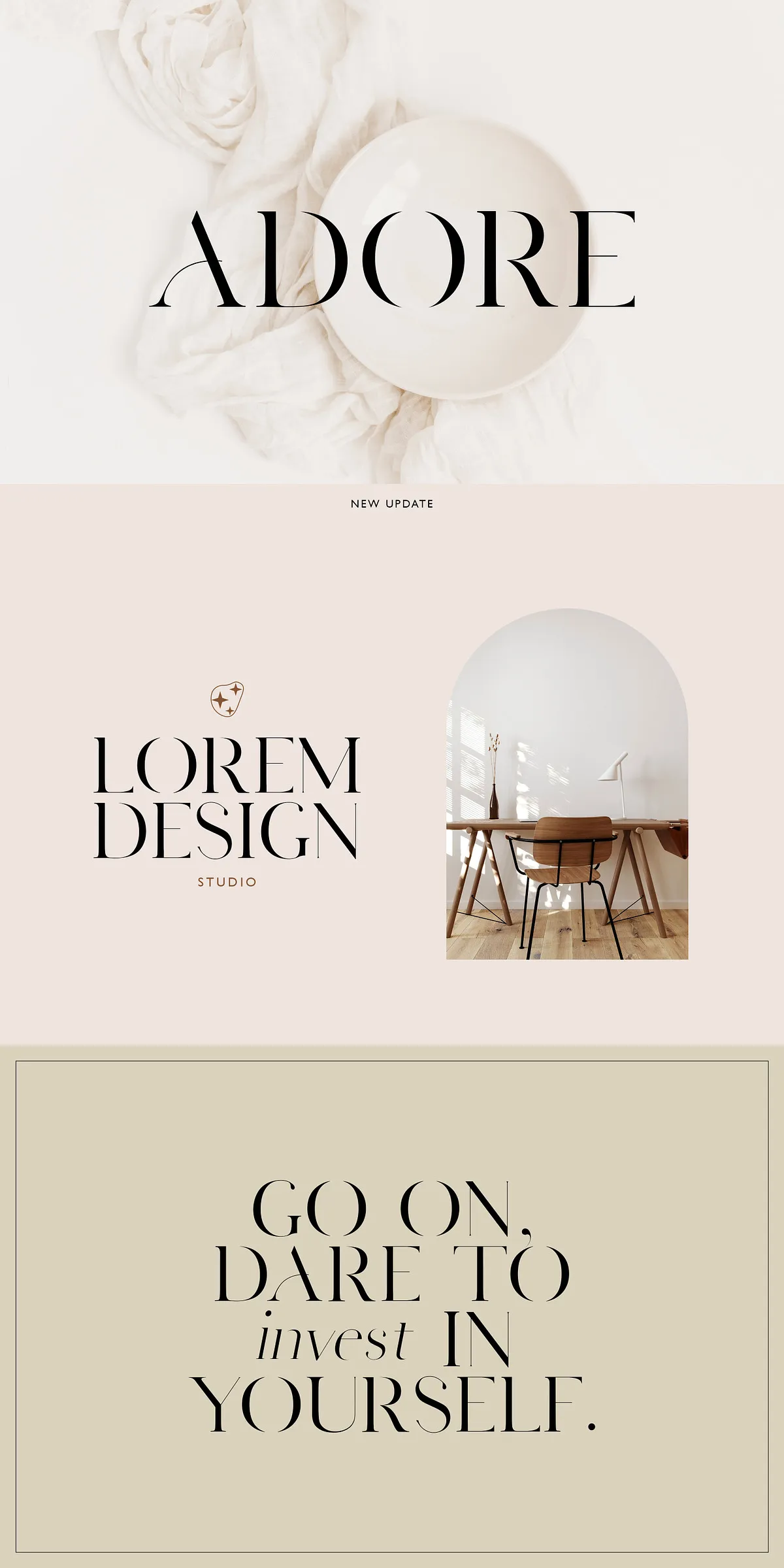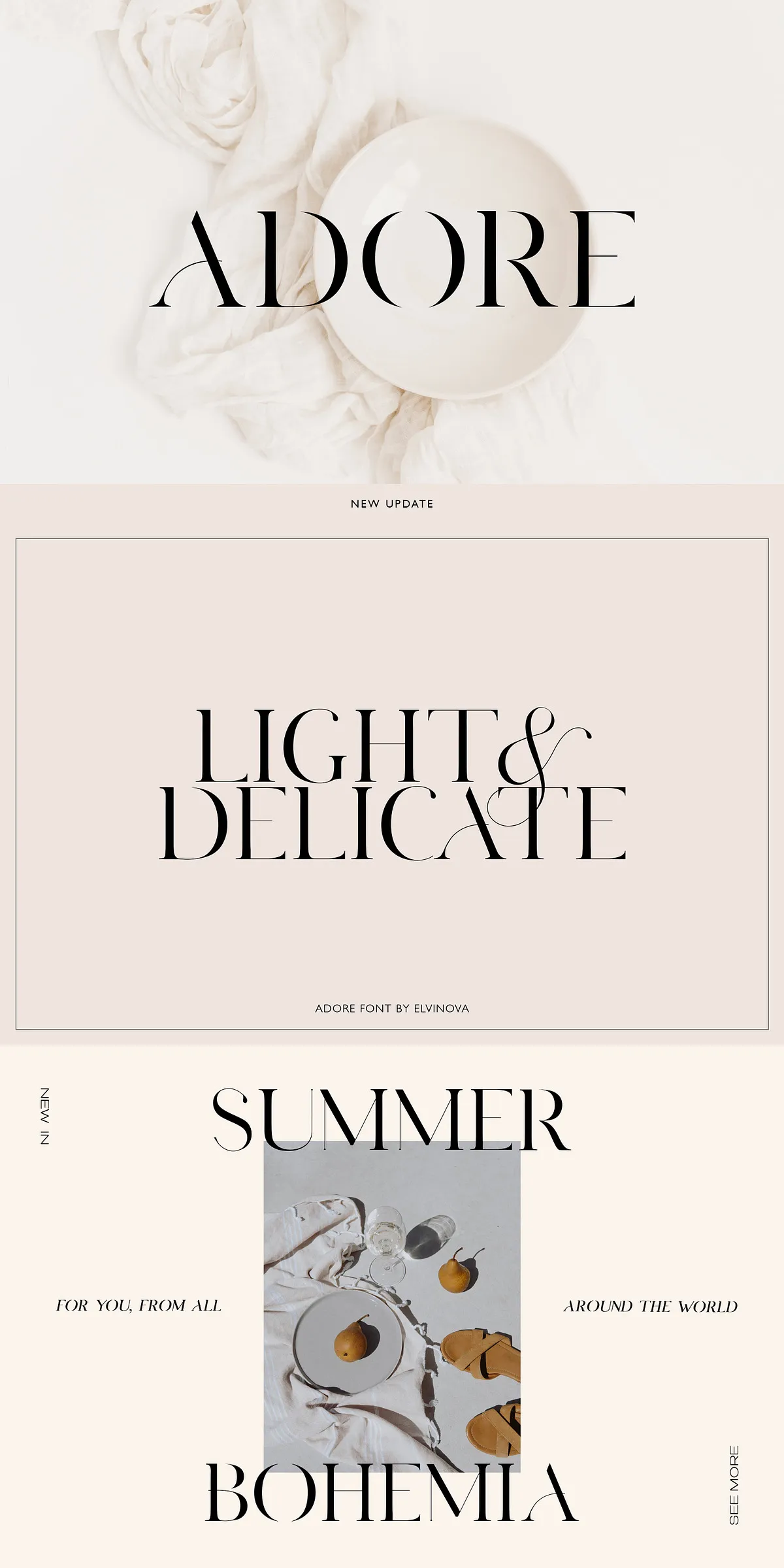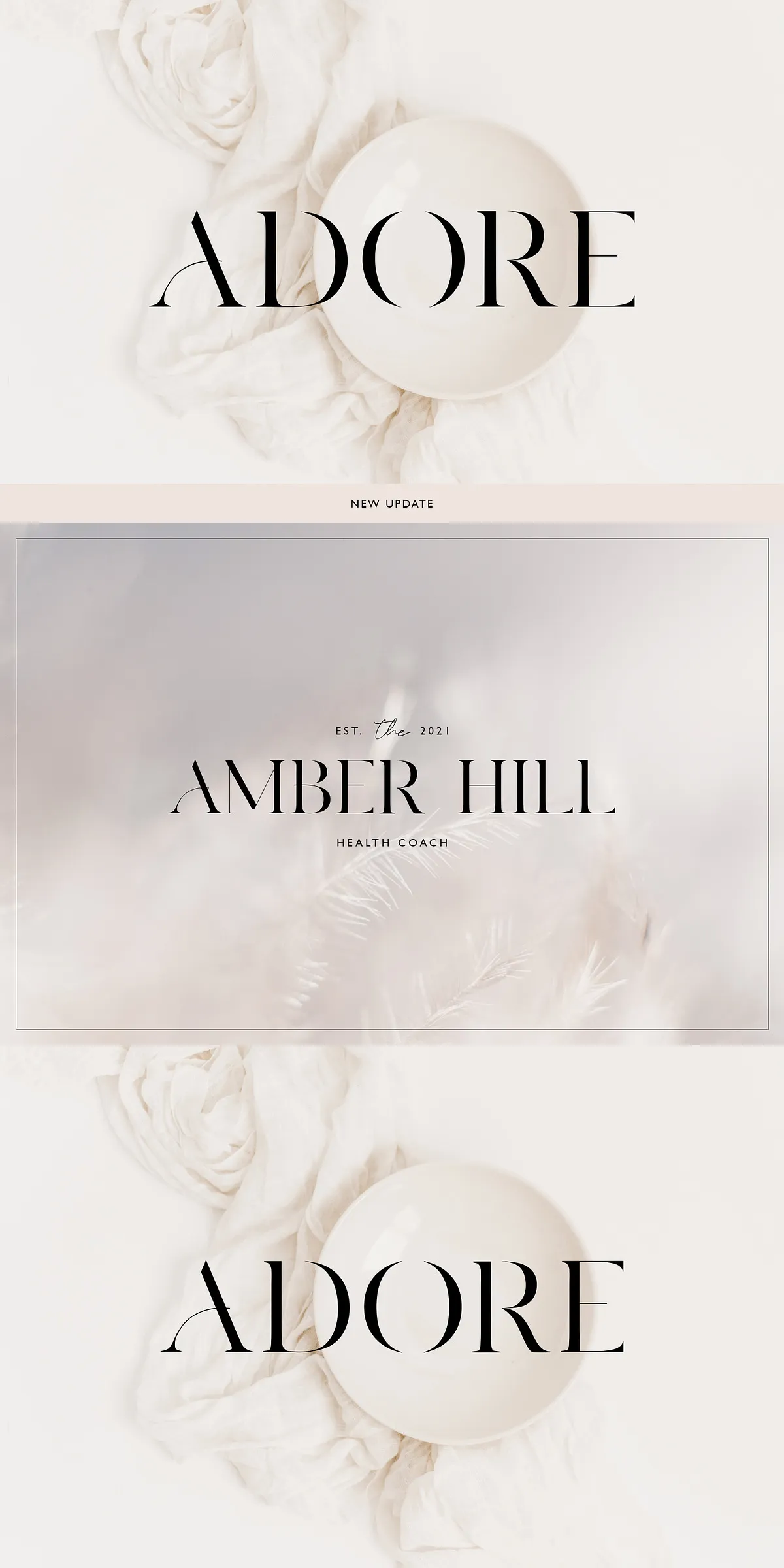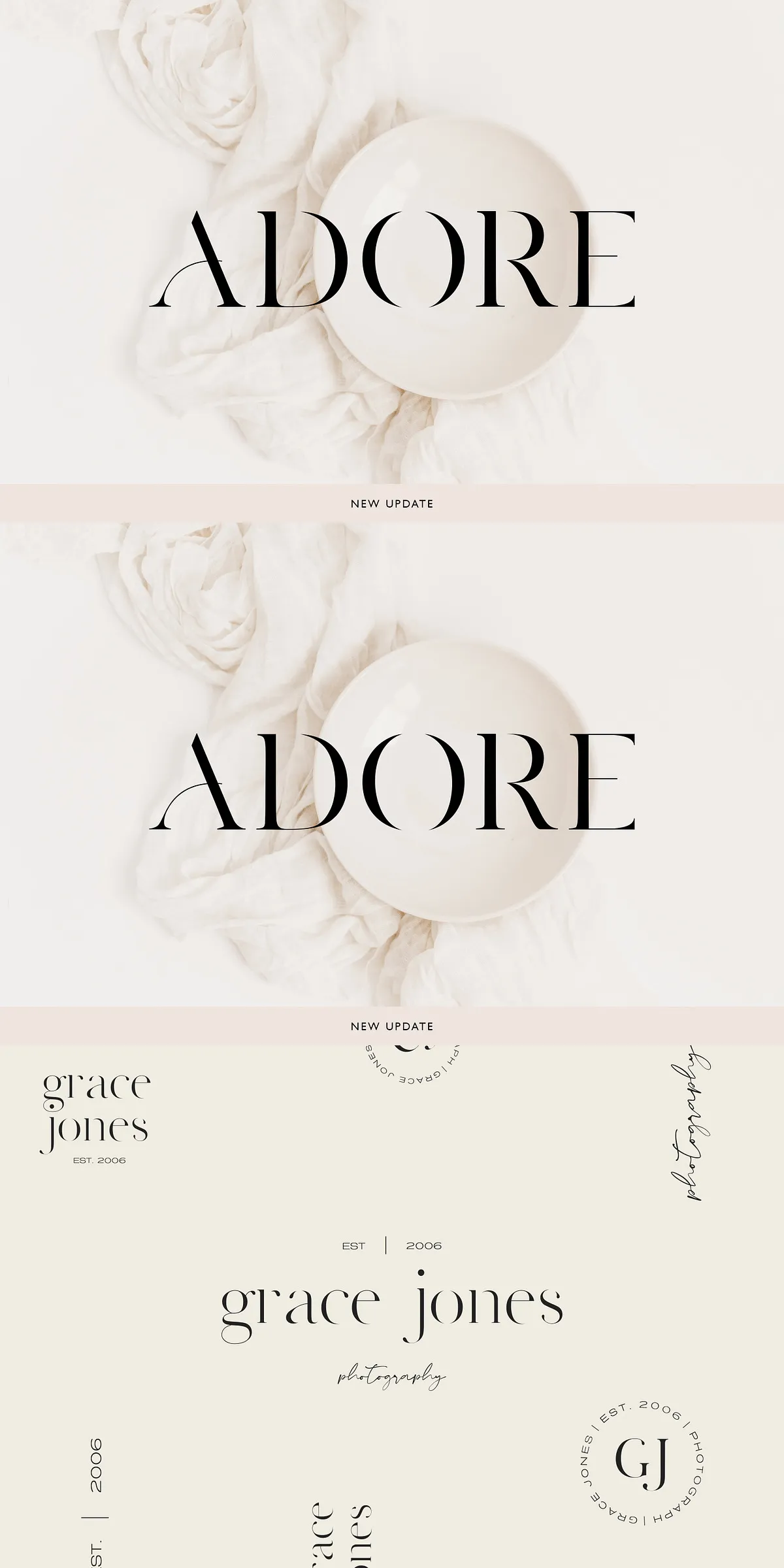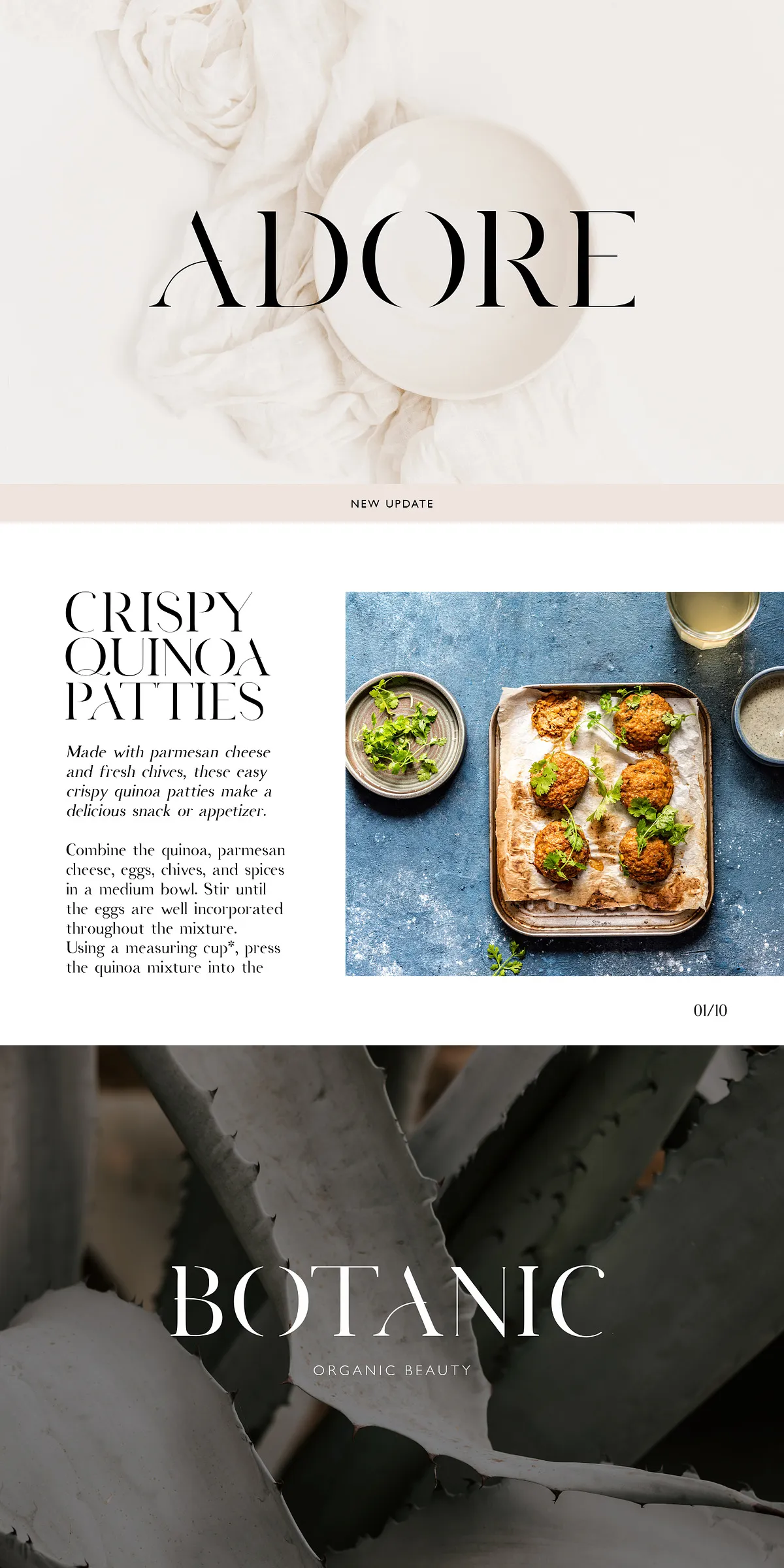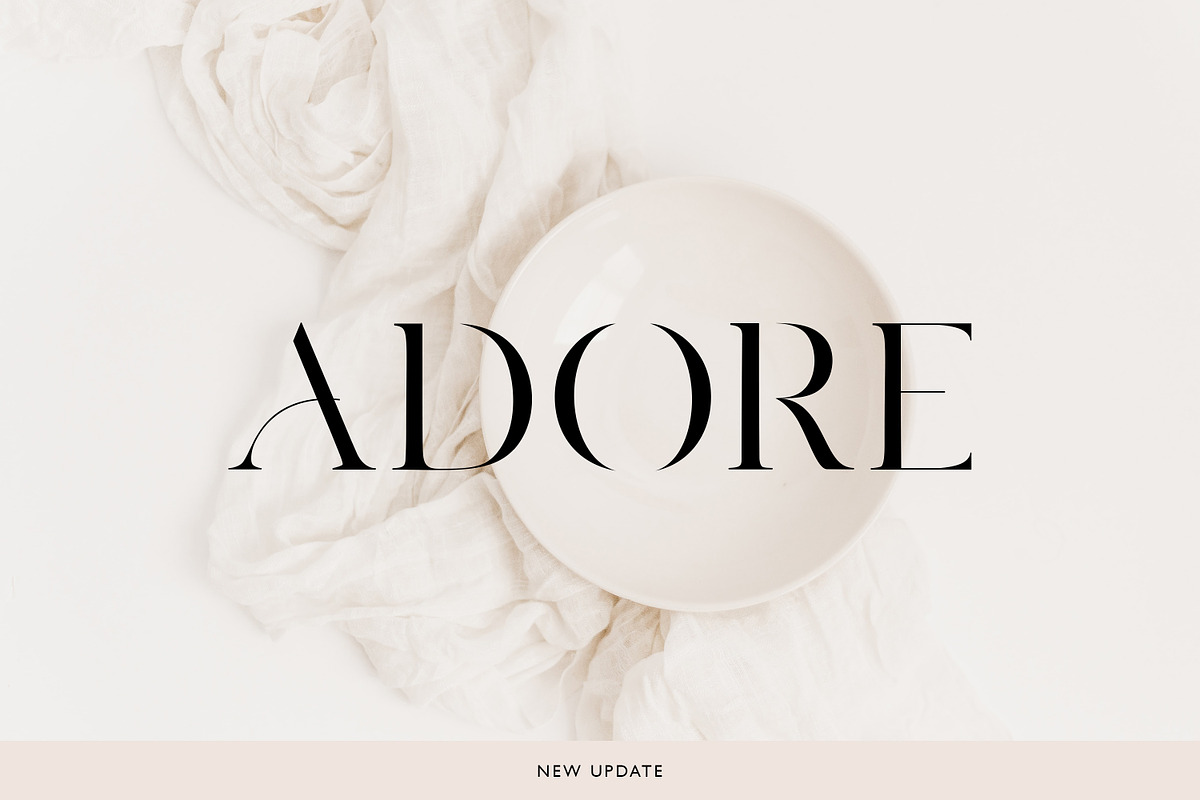
Adore Modern Serif Font
Introducing Adore — a luxuriously refined serif typeface crafted for designers and brands that value grace, precision, and timeless beauty. Fully redrawn and upgraded as of November 1st, 2023, Adore now delivers sharper forms, smoother strokes, and enhanced legibility — all while preserving its original delicate charm. Whether you’re shaping a luxury fashion label, designing a high-end wedding invitation, or crafting editorial layouts, Adore adds a sophisticated whisper of elegance that speaks volumes without shouting.
Complete Font Family with Powerful Stylistic Options
Adore isn’t just a single font — it’s a complete typographic suite designed for versatility and creativity. The family includes multiple weights and styles to give you full control over your design’s mood and rhythm:
• Regular – The foundation of elegance, perfect for clean body text and understated branding.
• Italic – Adds fluid motion and grace, ideal for quotes, headings, and narrative elements.
• Bold – Commands attention with weight and authority, perfect for impactful headlines.
• Alternate – Features unique custom glyphs and refined details for standout visual interest.
• Condensed – Compresses the type for tight layouts, perfect for logos, headers, or packaging.
With five distinct styles at your fingertips, you can match the tone of any project — from minimalist modern to richly ornate — with flawless consistency.
Refined Design: New & Improved Versions for Better Performance
After a deep revisit in 2023, every single character in Adore has been meticulously redrawn. This means:
• Optimized Glyph Shapes – Softer curves, refined counters, and balanced proportions for enhanced visual harmony.
• Enhanced Spacing & Kerning – Smoother letter spacing across all styles, especially noticeable in long-form text.
• Better Readability at Small Sizes – Ideal for body text, labels, and packaging where clarity is key.
• Improved Cross-Platform Rendering – Consistent display on screens, printers, and digital platforms.
This isn’t a minor update — it’s a complete typographic revitalization.
Perfect for Design Projects That Demand Elegance
Adore isn’t just for style — it’s for impact. Use it to elevate:
• Luxury Branding & Logo Design – Create signatures and identities that feel exclusive and memorable.
• Wedding Invitations & Stationery – Craft invitations with timeless romance and high-end aesthetic.
• Fashion & Beauty Campaigns – Add sophistication to catalogs, lookbooks, and brand visuals.
• Editorial Layouts & Magazines – Use for headlines, pull quotes, and captions with rich typographic texture.
• Product Packaging & Labels – Turn everyday items into designer experiences.
• Personal & Professional Portfolios – Let your work shine with elegant, trustworthy typography.